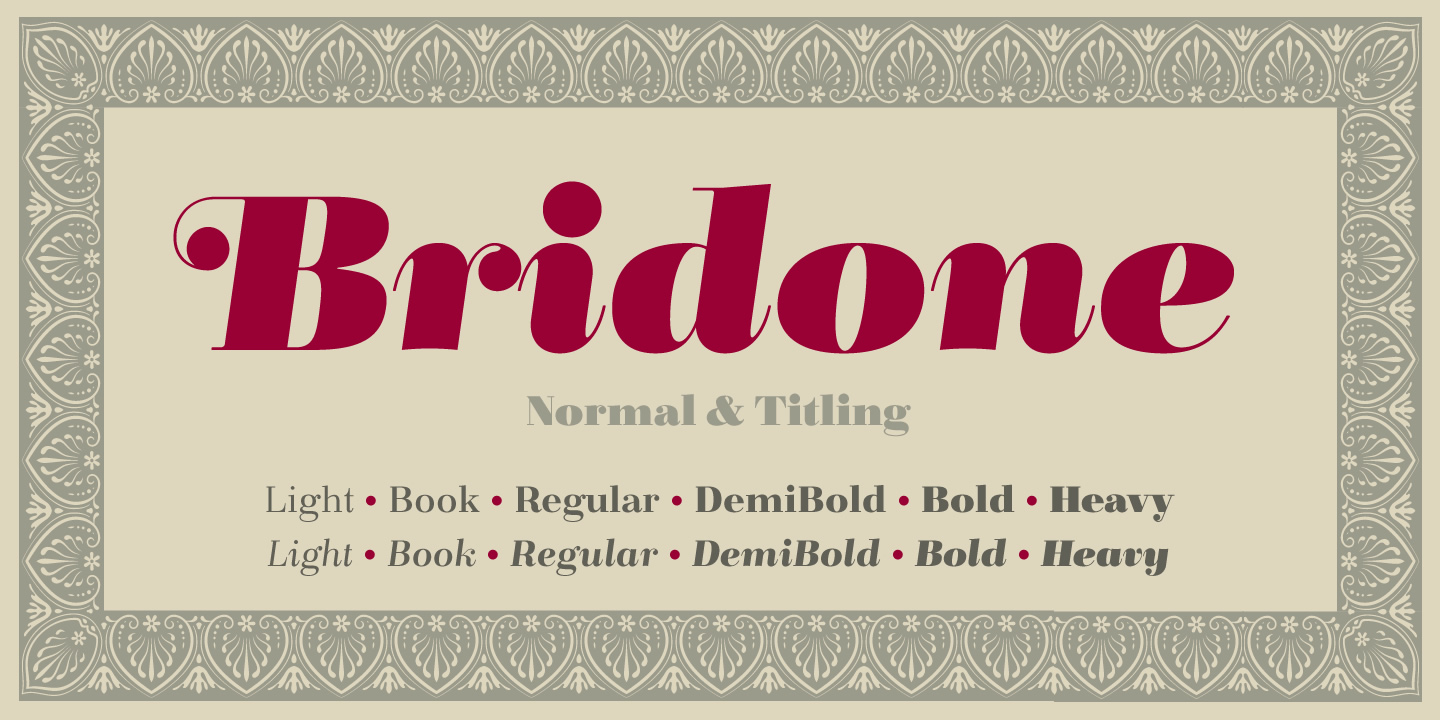
Bridone Font Free Download is an elegant and high-contrast serif typeface designed to make a bold and sophisticated statement. With its refined serifs, stylish curves, and strong vertical stress, Bridone is ideal for editorial layouts, luxury branding, fashion designs, and upscale packaging.
Whether you're working on a magazine spread or a premium brand identity, Bridone Font Free Download provides the perfect mix of readability and glamour. It evokes a classic yet contemporary aesthetic, giving your design a timeless quality that demands attention.